I Introduction
Desktop publishing has been widely used in the printing and publishing industry. Moreover, numerous digital fonts are available for use for various purposes. However, typographic fonts containing Japanese and Chinese characters are fewer in comparison with those containing Latin ones. Consequently, the range of publication or advertisement designs in such languages is narrow. One of the reasons for the paucity of font diversity in East Asian languages is that designing typographic fonts is a highly labor-intensive and time-consuming task. It requires the handicraft of a professional designer because of the complexity of the glyph shapes and the large number of characters used. Approximately thousands of characters are required for daily use, and tens of thousands of characters are required to cover the entire language, in contrast to the 26 letters required for the Latin alphabet.
Therefore, automatic generation of glyph images from only a few references is required, especially for languages having a large number of characters. Such automatic generation would reduce the workload of font designers and enable them to create more diverse and unique fonts. It may also help non-professional users in building their original font library.
This study addresses the problem of generating Japanese typographic fonts, which have a large number of characters, from only a few style reference glyphs as input (Fig. 1). The generated glyphs are expected to have coherent styles with reference glyphs in terms of the shape of skeletons, contour of serifs, and thickness of lines.
Various attempts have been made thus far to design fonts easily. Previous studies on font generation focused on the modeling of outlines [1, 2, 3]. These earlier methods often required human intervention, and the obtained results were insufficient or not coherent among the characters constituting a single font set.
With the rise of deep learning, several end-to-end font generation methods have been proposed over the past few years
[4, 5, 6, 7, 8]. However, these methods require a large number of style reference glyphs (approximately hundreds), which may be arduous to obtain in some cases.Recently, some studies have been conducted to generate fonts from a few reference glyphs without requiring a large number of references. These studies can be classified into two types based on their trends: texture style transfer
[9, 10, 11] and glyph shape transfer [12, 13, 14]. The latter is generally a more challenging task than the former as glyph shape features (such as outlines and skeletons) are not easy to separate into content and style. Although these methods successfully generate unseen style fonts with only a few reference glyphs, their results have room for improvement, especially when the number of style reference glyphs is extremely limited.
In this study, we focus on the common structure used in recent approaches [12, 10, 11, 13, 14]: content encoder + style encoder + decoder(s). We propose a simple but effective framework to improve the performance of the existing font generation networks: applying metric learning to their style feature encoders. This method forces the outputs of the style encoder to be closer to each other in the feature space when the input glyphs have the same style; otherwise, the outputs are far away from each other (Fig. 2). Thus, this method allows the style feature encoders to extract only the style features while reducing the impact of the differences in the content features.
We select AGIS-Net [10] and EMD [12] as our baselines and backbone networks. AGIS-Net is currently one of the best-performing models in the field of few-shot font generation. However, it has the drawback of poor quality in generating black-and-white and shape-distinctive fonts. EMD is an outstanding model for generating binary and shape-distinctive fonts. However, it often fails to extract novel style features and produces collapsed glyphs. We improve them by utilizing deep metric learning (DML) and discuss the effectiveness of our proposed framework. In summary, our contributions are as follows:
-
We introduce a simple DML method to existing font generation systems.
-
We show that metric learning contributes to extracting better style feature embeddings and producing more prominent results, especially when the number of style reference glyphs is considerably limited.
Ii Related Works
Ii-a Font Generation
Previous studies on automatic font generation focused on the explicit modeling of glyph outlines. Suveeranont and Igarashi [1] automatically extracted a skeleton from the outline of a reference glyph and generated a consistent font set utilizing a weighted blend of template fonts. Campbell and Kautz [2]
built a manifold of standard Latin fonts, on which we can generate fonts by interpolating existing fonts. Zhou et al.
[3] designed glyph modeling for Chinese characters by utilizing radicals. Lian et al. [15]proposed a model to generate Chinese handwriting fonts with neural networks to learn styles.
With the rise of deep learning, end-to-end font generation methods have been proposed recently. Upchurch et al. [4]
proposed a method to synthesize Latin fonts in a supervised way with variational autoencoders (VAEs)
[16]. The zi2zi [5]model utilizes generative adversarial networks (GANs)
[17] to generate Chinese typographic fonts. Lyu et al. [6] also used GANs to generate Chinese calligraphic images. Jiang et al. proposed a system to synthesize Chinese handwriting fonts from 775 samples [7] and later introduced a more powerful solution [8]. However, these methods require hundreds or more style reference glyphs, which may be arduous to obtain in some cases, such as for handwriting fonts.Several studies have been recently conducted to synthesize a font library from a few reference glyphs. Azadi et al. proposed MC-GAN [9], which generates all 26 letters of the Latin alphabet with color and texture from five samples. However, it is structurally difficult to create fonts for languages with a large number of characters through this method. SA-VAE proposed by Sun et al. [13] is a Chinese-specific model leveraging domain knowledge, such as structures and radicals. Zhang et al. proposed EMD [12], which synthesizes Chinese black-and-white and shape-distinctive fonts. Moreover, this method is applicable to other language fonts or domains. AGIS-Net proposed by Gao et al. [10] generates colored and textured Latin and Chinese fonts. This method was developed based on EMD with adversarial training schemes. The authors also attempted to generate black-and-white fonts with promising results, but there is room for improvement. DM-Font proposed by Cha et al. [14] utilizes dual memory banks for languages whose characters can be decomposed into a fixed number of sub-glyphs, such as Korean and Thai. However, this system requires additional knowledge about the compositions of each glyph, which may be expensive. Furthermore, its applicability to scripts that are not fully compositional such as Chinese has not yet been verified.
Ii-B Deep Metric Learning
DML is a fundamental technique widely used in various areas, such as facial recognition, anomaly detection, and image retrieval. It involves forming a feature space in which the distance between embeddings corresponds to the similarity of inputs.
Previous approaches extracted pairs (contrastive Loss by Hadsell et al. [18]) or triplets (triplet Loss by Hoffer et al. [19]) from a mini-batch to move the embeddings closer to or further away from each other, focusing on their relationships. These methods usually depend on the ability to pick a set of informative samples from a mini-batch. As mini-batches do not necessarily reflect the distribution of the entire training data, the optimization targets are not constant, and training tends to be unstable.
Ranjan et al. proposed -constrained softmax loss [20]. They fed an
-normalized feature vector into an additional fully connected layer, whose output dimension was the number of classes. Subsequently, they applied a softmax function and computed the cross-entropy loss. Qian et al.
[21] theoretically proved that minimizing a special case of the normalized softmax loss is equivalent to optimizing a smoothed triplet loss.Iii Methods
In this section, we introduce DML to the common component of state-of-the-art font generation frameworks: a style feature encoder. With DML, the style encoders are expected to output embeddings that are close to each other for input glyphs having the same style (small intra-class variance), and embeddings that are far from each other for inputs with different styles (large inter-class variance). Hence, the style feature encoders should be able to extract only style features while reducing the impact of the variances in the content features. Our framework is a simple but powerful approach to improve the performance of the existing schemes.
We describe the details of the loss function and the backbone frameworks below.
Iii-a Deep Metric Learning Loss
We selected the -constrained softmax loss proposed by Ranjan et al. [20] as the DML method because of its robustness and learning stability. Let be the -normalized style feature embedding for the -th sample. is the font class label corresponding to . denotes the weights of the additional fully connected layer, where is the dimension of the feature embedding, and is the number of font classes in training. represents the biases of the fully connected layer. is the temperature that amplifies the difference among classes. Consequently, we can express the loss function as follows:
(1) |
We computed the above loss function for the style feature embeddings from the models described below.
![]() |
Iii-B Backbone Models
Iii-B1 AGIS-Net
AGIS-Net [10] is a generic model that synthesizes colored and textured fonts. This model follows typical GAN schemes; it has a generator and discriminators. The generator (Fig. (a)a) has two CNN-based encoders: “content encoder,” which encodes what character to synthesize from a single content reference glyph, and “style encoder,” which extracts style features from a subset ( glyphs) of style reference glyphs. The font of the content reference glyphs is constant for all the training and inference processes. For each iteration, randomly selected glyphs from among the entire style reference set ( glyphs) are fed into the style encoder. The decoders originally have two branches: “shape decoder” and “texture decoder.” As we generated black-and-white fonts in our experiments, calculation of the loss function for the intermediate black-and-white images in the shape decoder is not required. Therefore, we eliminated the shape decoder and employ the texture decoder.
For the discriminators, the original model has a shape discriminator , texture discriminator , and local discriminator . The shape and texture discriminators attempt to distinguish whether the outputs of the shape and texture decoders, respectively, are real. As the shape decoder is eliminated, we cannot use the shape discriminator in our training. However, the generated glyph images are not degraded because the shape discriminator functions as a discriminator for both shapes and textures. Regarding the local discriminator, Gao et al. proposed to cut patches randomly from glyph images and feed them to the local discriminator. Furthermore, to obtain better texture details, they manually blurred some real samples with a Gaussian filter and regarded them as fake samples when training.
In AGIS-Net, four types of loss functions were used, in addition to our metric learning loss: loss, adversarial loss, contextual loss, and local texture refinement loss. The loss is the pixel-wise distance between the generated images and the ground-truth images , which is defined as
(2) |
The adversarial loss is defined as
(3) |
where denotes the texture discriminator. The loss of the texture discriminator is defined as
(4) |
where is a real glyph image. The contextual loss [22] was used to measure the similarity between two images, without spatial alignment. Assume that is the similarity between two feature maps and , is the -th layer feature of VGG19 [23], and is the number of used layers. The contextual loss is defined as
(5) |
The local texture refinement loss is defined as
(6) |
(7) |
where and are the patches from the generated images and style reference images, respectively, and indicates the blurred patches of .
We used these loss functions as described in the original paper, except for the shape-decoder-related losses. Thus, the loss function used to optimize the generator is expressed as
(8) |
where denotes the weights used for balancing the losses. The final objective used to optimize the generator and the discriminators is
(9) |
The training process has two phases: pre-training and fine-tuning. In the pre-training phase, we performed supervised and adversarial learning using several fonts. In the subsequent fine-tuning phase, we performed few-shot training for a single unseen font that we intended to generate. Note that only style reference glyph images are available in this stage. If the glyph to be generated is not in the few-shot reference set, we cannot view its ground-truth image. Then, and are set to zero because they are pair-wise loss functions that require ground-truth images. Furthermore, we did not use the metric learning loss when fine-tuning the model.
Iii-B2 Emd
EMD [12] is also a generic model to synthesize glyphs, but it does not employ the GAN architecture. The generator architecture of EMD (Fig. (b)b) is similar to that of AGIS-Net, but it utilizes the bilinear model as the feature mixer. The input format is also different, and EMD concatenates all the
images of the content/style reference set to feed them to each encoder. The training process is one-stage supervised learning, in which we used the entire training dataset. Then, in the inference stage, we generated glyphs from
content reference glyphs within the training dataset and style reference glyphs having novel styles.The loss function for the supervised training is expressed as follows:
(10) |
where is the number of black pixels in , denotes the training dataset, and is the mean value of the black pixels in the image .
The final objective used to optimize the generator is
(11) |
Iv Experiment
Iv-a Dataset
We constructed a Japanese typographic font dataset consisting of 368 fonts and 2965 glyphs to evaluate the effectiveness of our proposed framework. All the images are grayscale and have the dimensions 64 64 pixels. We randomly selected 338 fonts for the pre-training of AGIS-Net and the training of EMD. Among these 338 fonts, we used 165 glyphs for the validation set and 2800 glyphs for training. Furthermore, we used 30 fonts not used in training for the fine-tuning of AGIS-Net and the inference of AGIS-Net/EMD. For each font, style reference glyphs are available when synthesizing the unseen style font.
As mentioned in section III-B1, the font of the content reference glyphs is constant for all the training and inference processes of AGIS-Net. We selected a standard and simple style font, whose examples are shown in Fig. 4. Note that we did not include this font in the 368 fonts.
Iv-B Implementation Details
The weight of the metric learning loss was set to 1.0. The temperature of softmax
was selected as 0.5 for the pre-training of AGIS-Net and 0.1 for the training of EMD. The other hyperparameters and the settings of the convolutional layers are the same as the original settings.
We performed the pre-training of AGIS-Net for 20 epochs. The learning rate in the first 10 epochs was set to 0.0002 and was reduced linearly in the remaining 10 epochs. Subsequently, we performed fine-tuning for 200 epochs at the learning rate of 0.00002. The number of glyphs fed to the style encoder simultaneously,
, is set to 4. Note that the dimensionalities of the content/style feature embeddings are 512.Furthermore, we performed the training of EMD for 10 epochs at the learning rate of 0.0002. The dimensionalities of the feature embeddings, , , and (Fig. (b)b) are all 512.
Iv-C Results
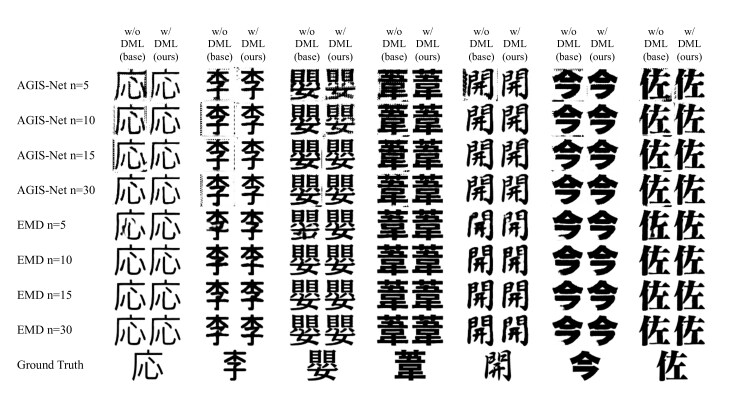
Method | ||||||||
---|---|---|---|---|---|---|---|---|
Loss | PSNR | SSIM | FID | |
AGIS-Net [10] | 0.306 | 9.85 | 0.554 | 123.82 | 0.275 | 10.53 | 0.607 | 89.33 |
AGIS-Net [10] + DML (ours) | 0.274 | 10.44 | 0.566 | 115.41 | 0.219 | 11.84 | 0.656 | 69.76 |
EMD [12] | 0.189 | 13.48 | 0.701 | 63.79 | 0.179 | 13.87 | 0.721 | 57.84 |
EMD [12] + DML (ours) | 0.187 | 13.58 | 0.705 | 60.91 | 0.179 | 13.96 | 0.726 | 54.59 |
Method | ||||||||
---|---|---|---|---|---|---|---|---|
Loss | PSNR | SSIM | FID | |
AGIS-Net [10] | 0.245 | 11.07 | 0.640 | 77.78 | 0.208 | 12.29 | 0.684 | 60.14 |
AGIS-Net [10] + DML (ours) | 0.202 | 12.56 | 0.686 | 53.72 | 0.193 | 13.03 | 0.705 | 46.86 |
EMD [12] | 0.176 | 13.95 | 0.727 | 57.81 | 0.174 | 14.04 | 0.733 | 53.82 |
EMD [12] + DML (ours) | 0.174 | 14.07 | 0.730 | 57.41 | 0.170 | 14.25 | 0.738 | 53.84 |
We synthesized Japanese typographic fonts from style reference glyphs with AGIS-Net and EMD. The generated glyphs are shown in Fig. 5. The results demonstrated that our method produces glyphs with clearer contours and less noise compared with the baseline methods. The baseline methods generated poor results, especially when is extremely small, whereas the enhanced models with the proposed method produced accurate results.
Moreover, we conducted quantitative evaluations of the proposed method. To evaluate the performance, we adopted four commonly used metrics:
loss, peak signal-to-noise ratio (PSNR), structural similarity index (SSIM)
[24], and Frechet inception distance (FID) [25]. The smaller the values of loss and FID, the better is the performance. In contrast, the larger the values of PSNR and SSIM, the better is the performance. We calculated these metrics for each of the 30 fonts and then calculated the average of these values, as summarized in Table I. The methods enhanced with our framework outperformed the baseline methods in almost all the metrics and .Our framework with DML is more effective when the number of style reference glyphs is small, which leads to the following inferences. Introducing DML allows our model to extract only the font style features, without being affected by the differences in contents. Therefore, our method requires fewer style reference glyphs for capturing the style characteristics of novel fonts.
Iv-D Effects of Deep Metric Learning
Method | R@1 | R@2 | NMI |
---|---|---|---|
AGIS-Net [10] | 0.7556 | 0.8689 | 0.8510 |
AGIS-Net [10] + DML (ours) | 0.7822 | 0.8756 | 0.8628 |
We investigated the distribution of style feature embeddings using AGIS-Net to verify whether the style encoder can output better style feature embeddings with our framework. We pre-trained AGIS-Net with and without DML by using the settings mentioned in Section IV-B. Then, we extracted style feature embeddings from 30 style reference glyphs for each of 30 unseen fonts, with the pre-trained style encoder. As the AGIS-Net style encoder architecture requires images to be input simultaneously, we concatenated a single image times.
With the obtained 900 style feature embeddings, we evaluated the following two metrics: recall@ [26] and normalized mutual information (NMI) [27]. Recall@, a standard measure in image retrieval, denotes the proportion of query vectors for which the embedding vectors of the same class appear in the nearest
neighbors in Euclidean metrics. For NMI, we clustered the style feature embeddings into 30 classes with k-means++
[28] for 100 times, calculated the NMI between each result of the clustering and the true classes, and reported the best value. The results are listed in Table II, where R@ indicates Recall@. All the metrics indicate that our framework with DML helps in improving feature separation.Moreover, we visualized these style feature embeddings with t-distributed stochastic neighbor embedding (t-SNE) [29] (Fig. 6). With the use of DML, different styles exist far away from each other, whereas similar styles are located close together but with less overlap. This suggests that the style encoder can extract features by focusing on the differences in style, even in cases where the differences in style are slighter than the differences in content. Such improved feature separation leads to an improvement in the results of typographic font generation.
![]() |
V Conclusion
In this study, we proposed a powerful and simple framework to improve the performance of existing few-shot font generation methods, handling Japanese typographic fonts. The existing methods are known to produce poor results when the number of style reference glyphs is extremely limited. We introduced DML through -constrained softmax loss to the style encoder and demonstrated the remarkable improvement in the outcomes. We used AGIS-Net and EMD as the baseline methods in this study. However, our framework is general and is easily applicable to other methods and tasks. Furthermore, experimental results indicated that our framework helps style encoders focus on style characteristics, without being biased by content properties. Consequently, promising results can be obtained when the style reference glyphs are considerably limited.
References
- [1] R. Suveeranont and T. Igarashi, “Example-based automatic font generation,” in Proceedings of International Symposium on Smart Graphics. Springer, 2010, pp. 127–138.
- [2] N. D. F. Campbell and J. Kautz, “Learning a manifold of fonts,” ACM Trans. Graph., vol. 33, no. 4, Jul. 2014.
- [3] B. Zhou, Weihong Wang, and Zhanghui Chen, “Easy generation of personal chinese handwritten fonts,” in Proceedings of IEEE International Conference on Multimedia and Expo, 2011, pp. 1–6.
- [4] P. Upchurch, N. Snavely, and K. Bala, “From a to z: supervised transfer of style and content using deep neural network generators,” arXiv preprint arXiv:1603.02003, 2016.
- [5] “zi2zi: Master chinese calligraphy with conditional adversarial networks.” [Online]. Available: https://kaonashi-tyc.github.io/2017/04/06/zi2zi.html
- [6] P. Lyu, X. Bai, C. Yao, Z. Zhu, T. Huang, and W. Liu, “Auto-encoder guided gan for chinese calligraphy synthesis,” in Proceedings of 2017 14th IAPR International Conference on Document Analysis and Recognition (ICDAR), vol. 01, 2017, pp. 1095–1100.
- [7] Y. Jiang, Z. Lian, Y. Tang, and J. Xiao, “Dcfont: an end-to-end deep chinese font generation system,” in SIGGRAPH Asia 2017 Technical Briefs, 11 2017, pp. 1–4.
-
[8]
——, “Scfont: Structure-guided chinese font generation via deep stacked
networks,” in
Proceedings of the AAAI Conference on Artificial Intelligence
, vol. 33, 2019, pp. 4015–4022. -
[9]
S. Azadi, M. Fisher, V. G. Kim, Z. Wang, E. Shechtman, and T. Darrell,
“Multi-content gan for few-shot font style transfer,” in
Proceedings of the IEEE conference on computer vision and pattern recognition
, 2018, pp. 7564–7573. - [10] Y. Gao, Y. Guo, Z. Lian, Y. Tang, and J. Xiao, “Artistic glyph image synthesis via one-stage few-shot learning,” ACM Trans. Graph., vol. 38, no. 6, Nov. 2019.
- [11] S. Yang, J. Liu, W. Wang, and Z. Guo, “TET-GAN: Text effects transfer via stylization and destylization,” in Proceedings of the AAAI Conference on Artificial Intelligence, vol. 33, 2019, pp. 1238–1245.
- [12] Y. Zhang, and W. Cai, “Separating style and content for generalized style transfer,” in Proceedings of the IEEE conference on computer vision and pattern recognition, 2018, pp. 8447–8455.
- [13] D. Sun, T. Ren, C. Li, H. Su, and J. Zhu, “Learning to write stylized chinese characters by reading a handful of examples,” in Proceedings of the Twenty-Seventh International Joint Conference on Artificial Intelligence, IJCAI-18. International Joint Conferences on Artificial Intelligence Organization, 7 2018, pp. 920–927.
- [14] J. Cha, S. Chun, G. Lee, B. Lee, S. Kim, and H. Lee, “Few-shot compositional font generation with dual memory,” arXiv preprint arXiv:2005.10510, 2020.
- [15] Z. Lian, B. Zhao, and J. Xiao, “Automatic generation of large-scale handwriting fonts via style learning,” in SIGGRAPH Asia 2016 Technical Briefs. New York, NY, USA: Association for Computing Machinery, 2016.
- [16] D. P. Kingma and M. Welling, “Auto-encoding variational bayes,” arXiv preprint arXiv:1312.6114, 2013.
- [17] I. Goodfellow, J. Pouget-Abadie, M. Mirza, B. Xu, D. Warde-Farley, S. Ozair, A. Courville, and Y. Bengio, “Generative adversarial nets,” in Proceedings of Advances in neural information processing systems, 2014, pp. 2672–2680.
- [18] R. Hadsell, S. Chopra, and Y. LeCun, “Dimensionality reduction by learning an invariant mapping,” in Proceedings of the IEEE conference on computer vision and pattern recognition, vol. 2, 2006, pp. 1735–1742.
- [19] E. Hoffer and N. Ailon, “Deep metric learning using triplet network,” in Proceedings of International Workshop on Similarity-Based Pattern Recognition. Springer, 2015, pp. 84–92.
- [20] R. Ranjan, C. D. Castillo, and R. Chellappa, “L2-constrained softmax loss for discriminative face verification,” arXiv preprint arXiv:1703.09507, 2017.
- [21] Q. Qian, L. Shang, B. Sun, J. Hu, H. Li, and R. Jin, “Softtriple loss: Deep metric learning without triplet sampling,” in Proceedings of the IEEE International Conference on Computer Vision, 2019, pp. 6450–6458.
- [22] R. Mechrez, I. Talmi, and L. Zelnik-Manor, “The contextual loss for image transformation with non-aligned data,” in Proceedings of the European Conference on Computer Vision, 2018, pp. 768–783.
- [23] K. Simonyan and A. Zisserman, “Very deep convolutional networks for large-scale image recognition,” arXiv preprint arXiv:1409.1556, 2014.
- [24] Z. Wang, A. C. Bovik, H. R. Sheikh, and E. P. Simoncelli, “Image quality assessment: from error visibility to structural similarity,” IEEE Trans. Image Process., vol. 13, no. 4, pp. 600–612, 2004.
- [25] M. Heusel, H. Ramsauer, T. Unterthiner, B. Nessler, and S. Hochreiter, “Gans trained by a two time-scale update rule converge to a local nash equilibrium,” in Proceedings of Advances in neural information processing systems, 2017, pp. 6626–6637.
- [26] H. Jegou, M. Douze, and C. Schmid, “Product quantization for nearest neighbor search,” IEEE Trans. Pattern Anal. Mach. Intell., vol. 33, no. 1, pp. 117–128, 2010.
- [27] C. D. Manning, P. Raghavan, and H. Schütze, Introduction to Information Retrieval. Cambridge university press, 2008.